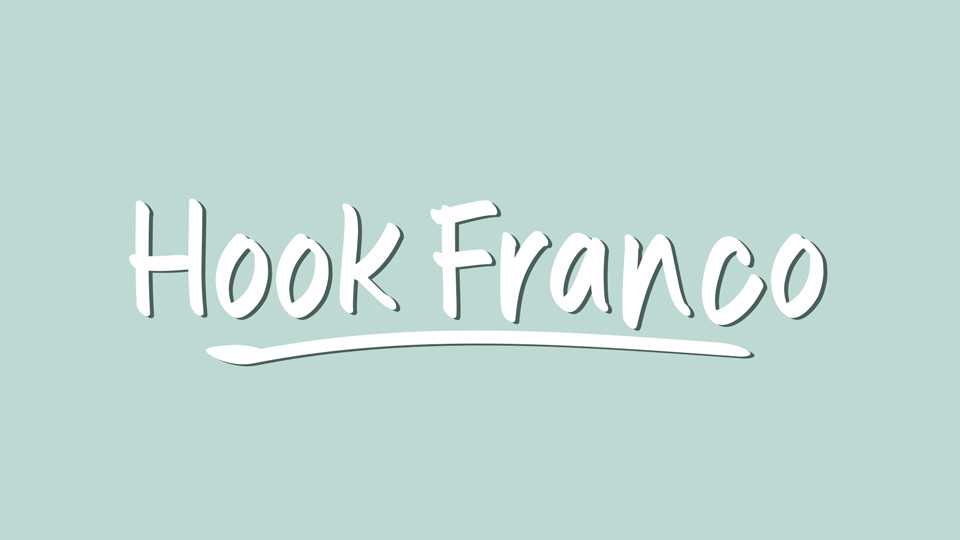
Download Hook Franko font, a natural handwritten font, perfect for adding a casual, creative flair to comics, notes, and crafts. Hook Franko font is simple and easy to use, so you can quickly bring your ideas to life with a unique and personal touch.